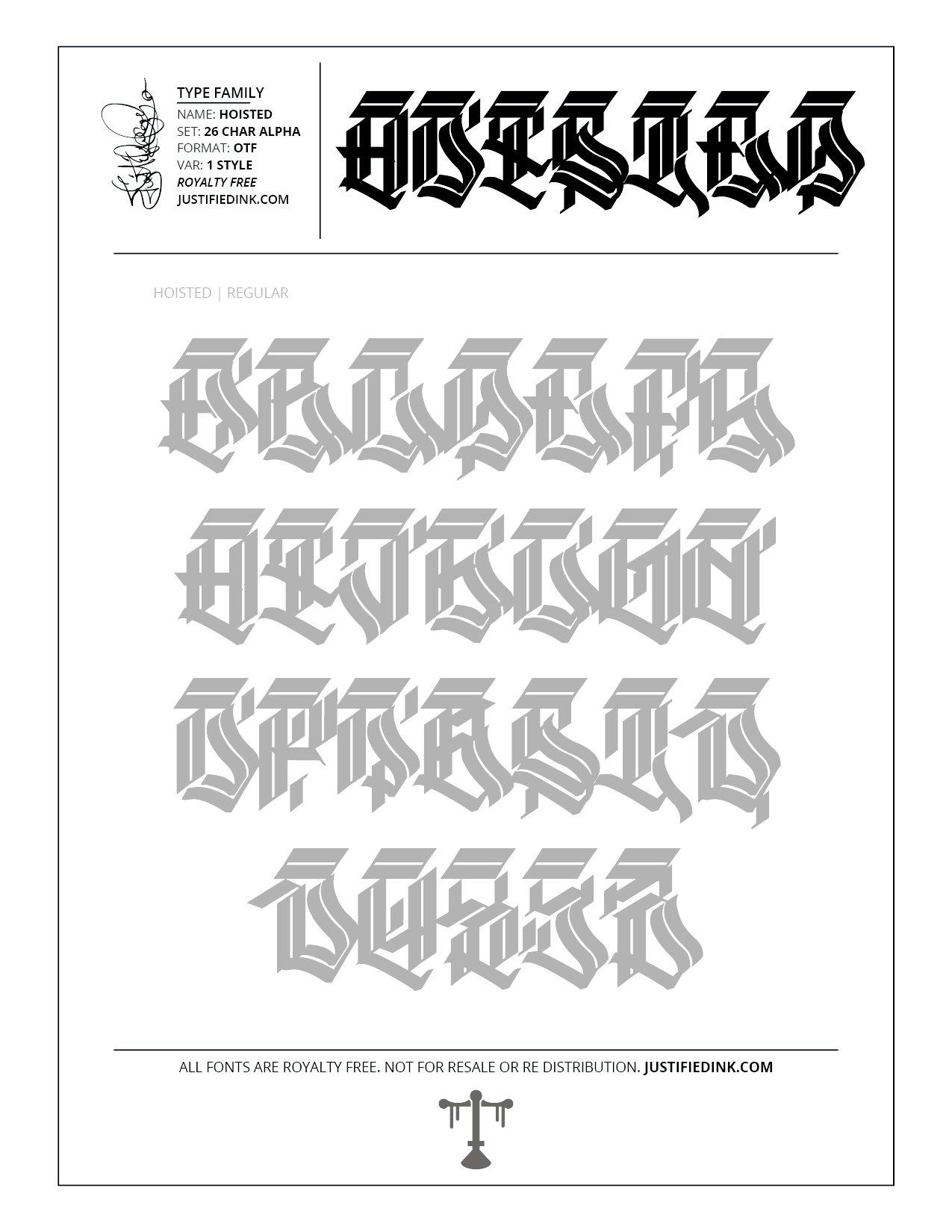
Hoisted (1 style) - Custom Font by Justified Ink
NAME: Hoisted
Strong and ready to bring up any design, Hoisted can hold its own. Get ready to build with the clean heavyweight style from the Blackletter II Collection.
This font is part of the collection by Justified Ink, called Blackletter II. After 15+ years creating, I began to focus on building personal libraries of my work. The Blackletter II Collection was created through writing page after page, and countless hours over a 2 year span of daily practice. Each font from this collection has been hand drawn, manually vectored, and custom set as a type-able font. It comes in a full set of 26 char alpha. Each font family has variations in styles and/or non-alpha chars.